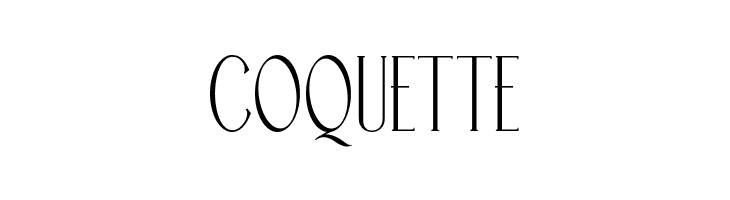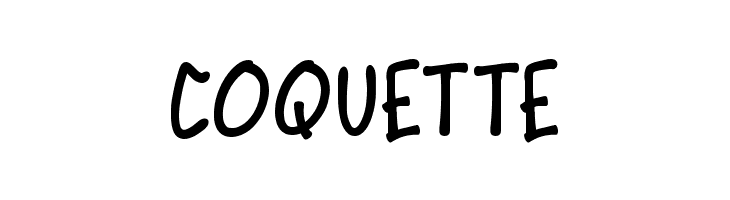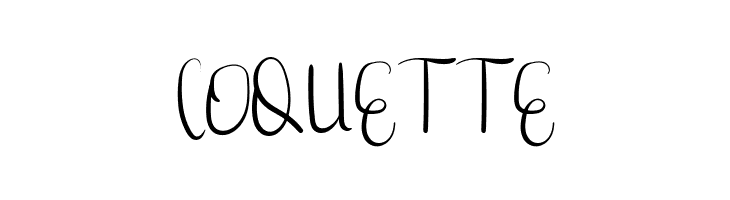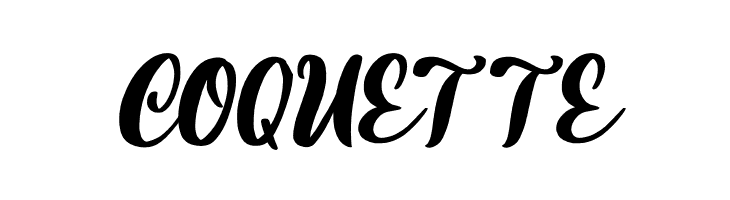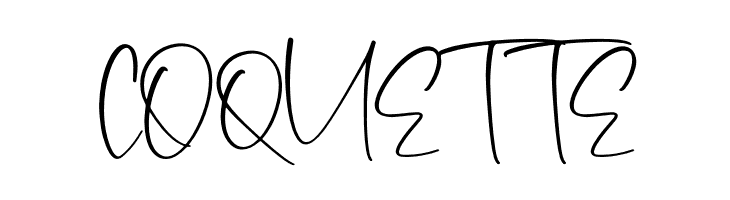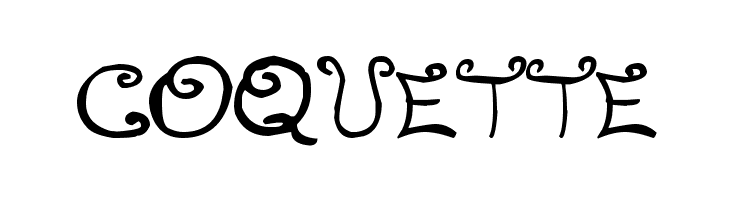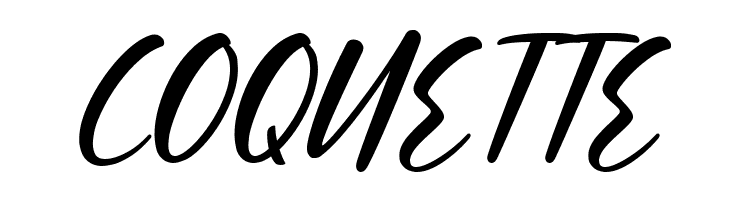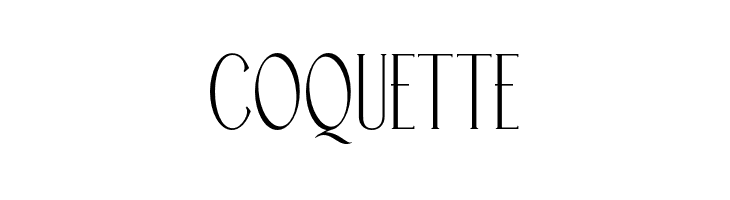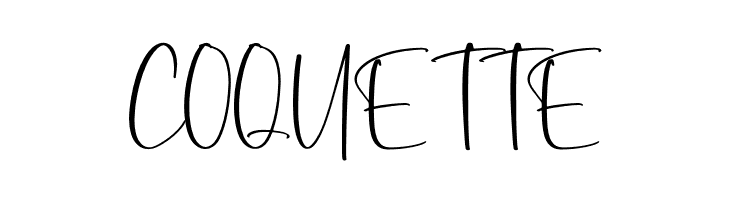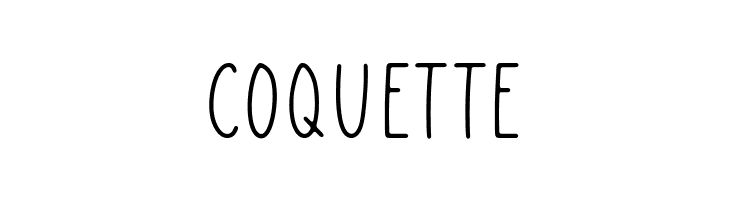
A playful, bold handwritten font with a casual and friendly style.
An elegant, flowing script font with artistic loops and swirls.
A lively handwritten font with fluid, dynamic strokes and a modern artistic flair.
Handwritten, playful sans-serif with tall, narrow letters.
A playful, modern handwritten font with medium contrast and dynamic slant.
A bold, expressive script font with flowing, interconnected characters.
An elegant, high-contrast serif font with elongated characters.
An elegant, high-contrast font with tall, slender characters.
A dynamic and elegant script font with fluid, connected strokes.